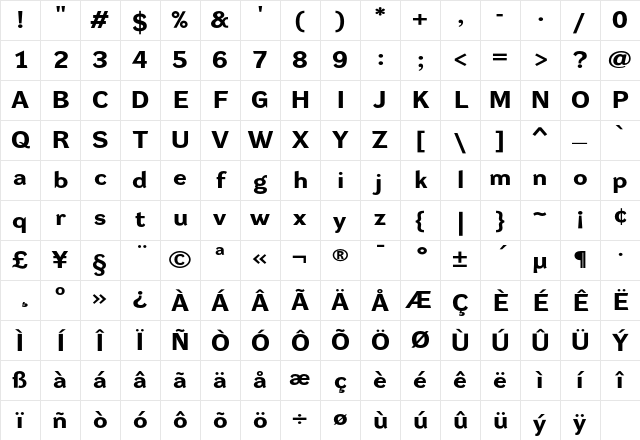
Complete DynaGrotesk RXE Bold glyph index. Displaying only characters natively supported by DynaGrotesk RXE Bold font.
DynaGrotesk RXE takes a clean, functional approach - its unadorned letterforms prioritise legibility and work reliably across screen and print environments. Its bold stroke weight gives it real presence on the page.
Font Pairing: Use DynaGrotesk RXE for headlines alongside a lighter-weight sans or serif for body copy to establish clear visual hierarchy.
Pro Tip: Use DynaGrotesk RXE for UI labels, navigation, and short-form body copy where clean legibility is the priority.